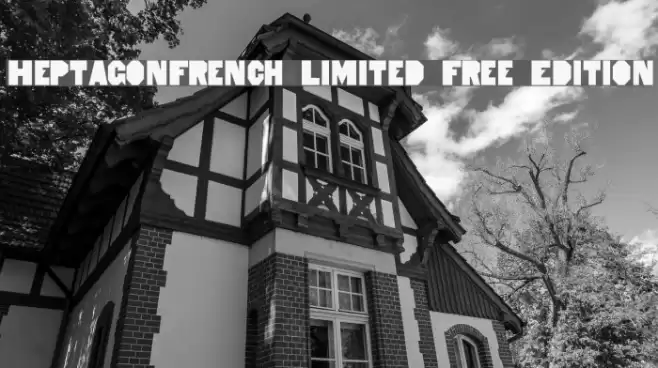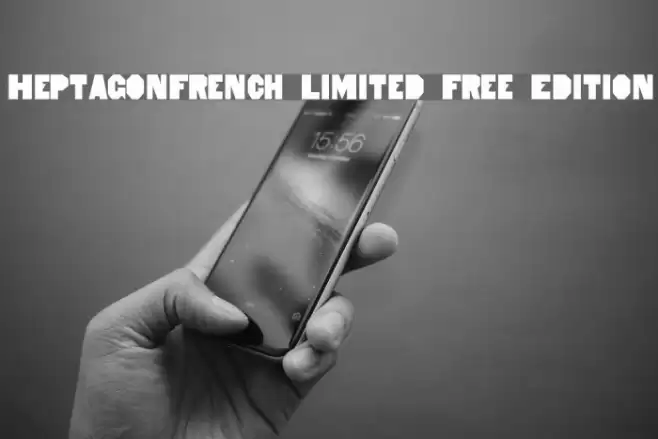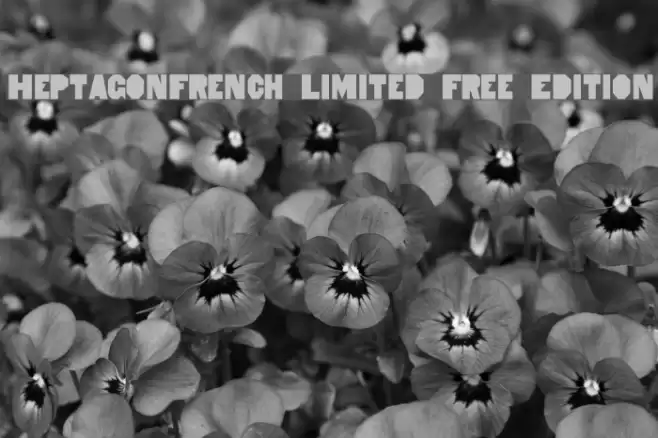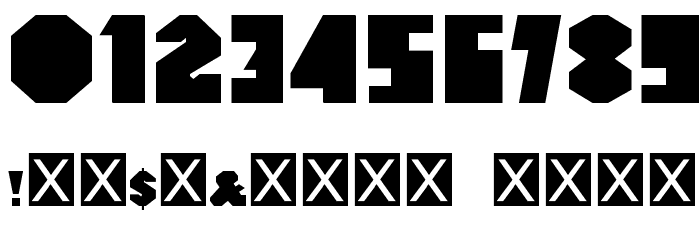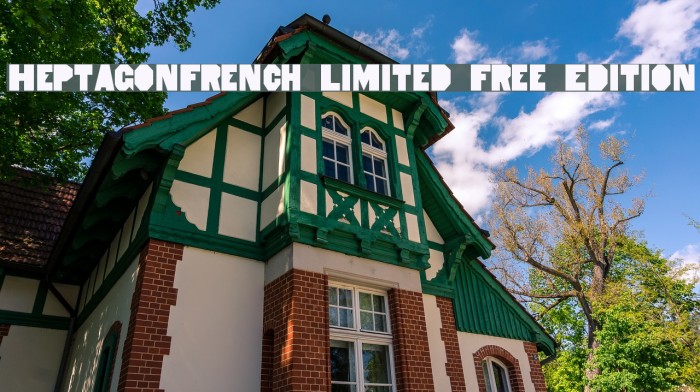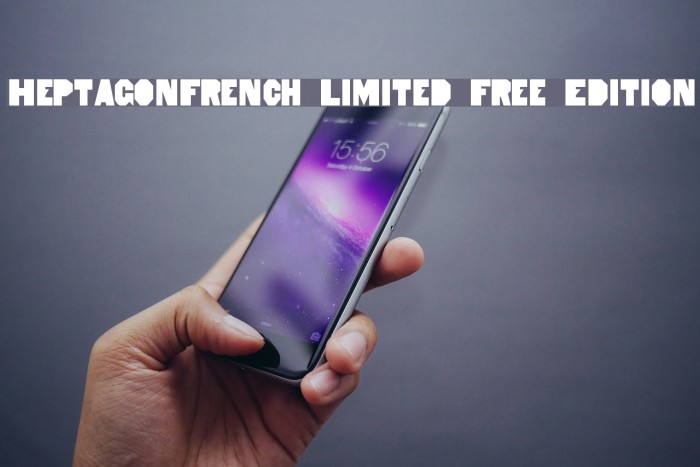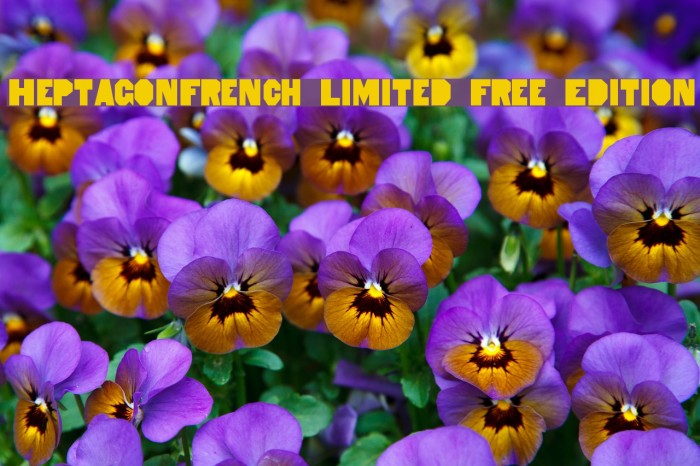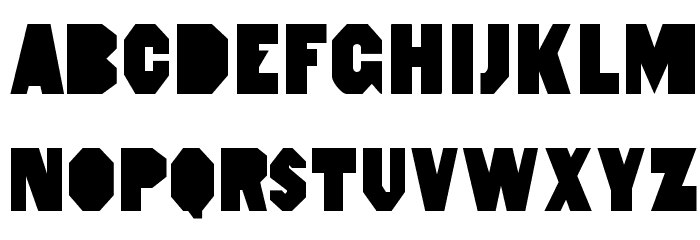
HeptagonFrench Limited Free Edition Font
HeptagonFrench Limited Free Edition Description
This font features a bold, geometric design with a distinct heptagonal shape for each character. The letters are constructed with sharp angles and straight lines, creating a modern and industrial feel. The uppercase and lowercase letters maintain a consistent style, with the lowercase slightly smaller but equally bold. Numbers follow the same geometric pattern, ensuring uniformity across all characters. The special characters are designed to match the overall aesthetic, making them suitable for attention-grabbing designs. The font's unique structure makes it ideal for projects that require a strong visual impact.
A bold, geometric font with a modern, industrial aesthetic from Futuristic fonts.